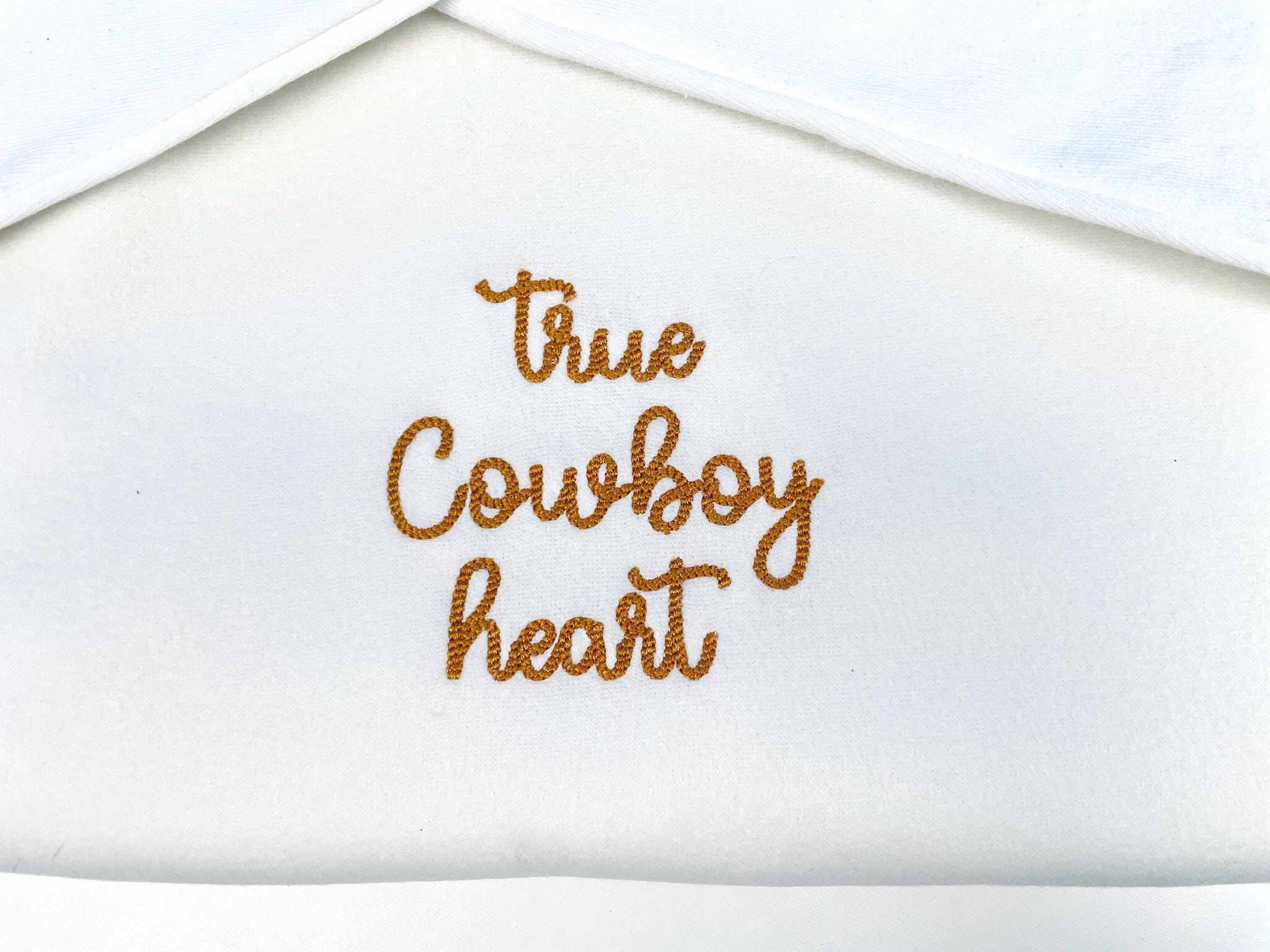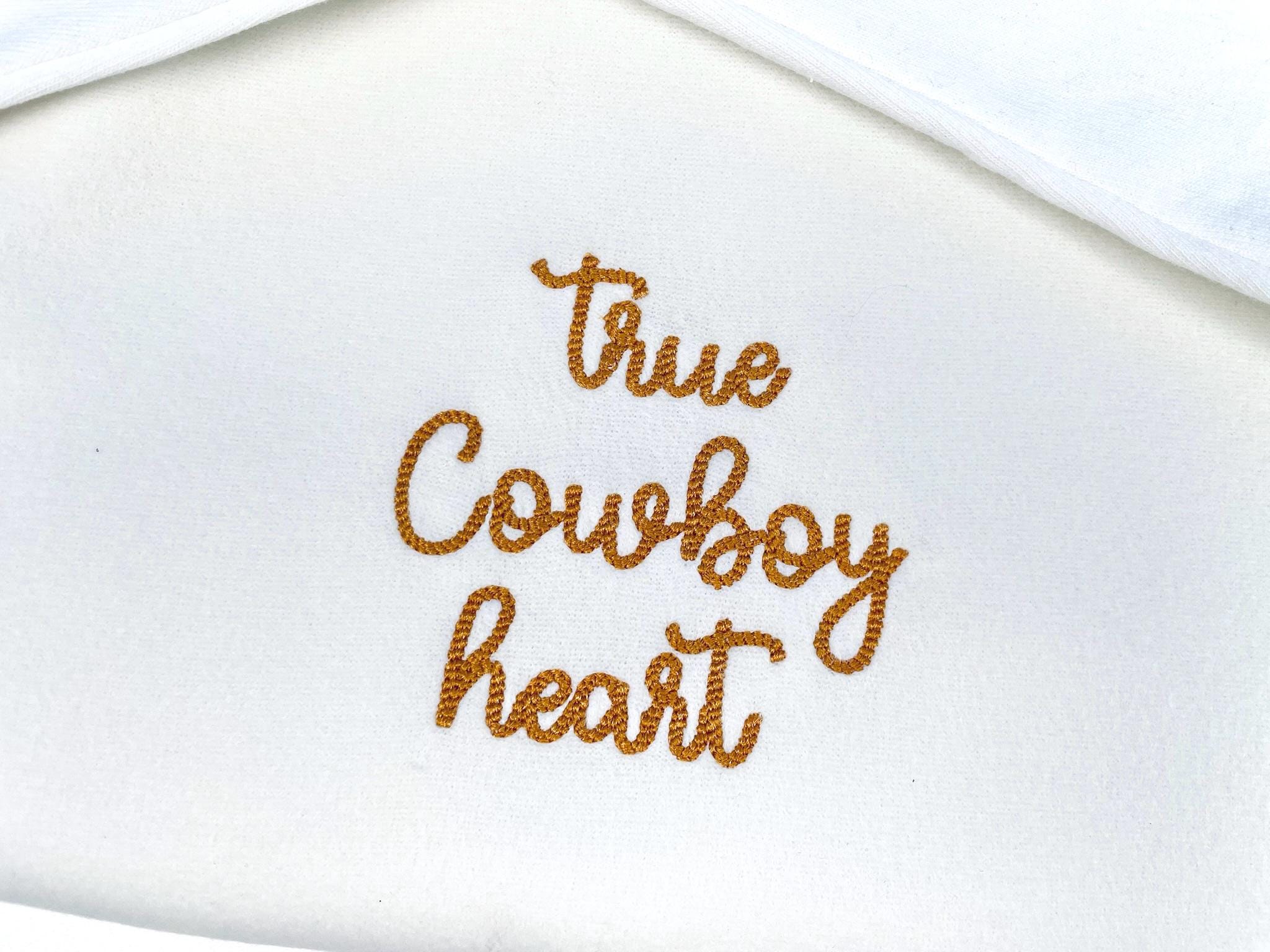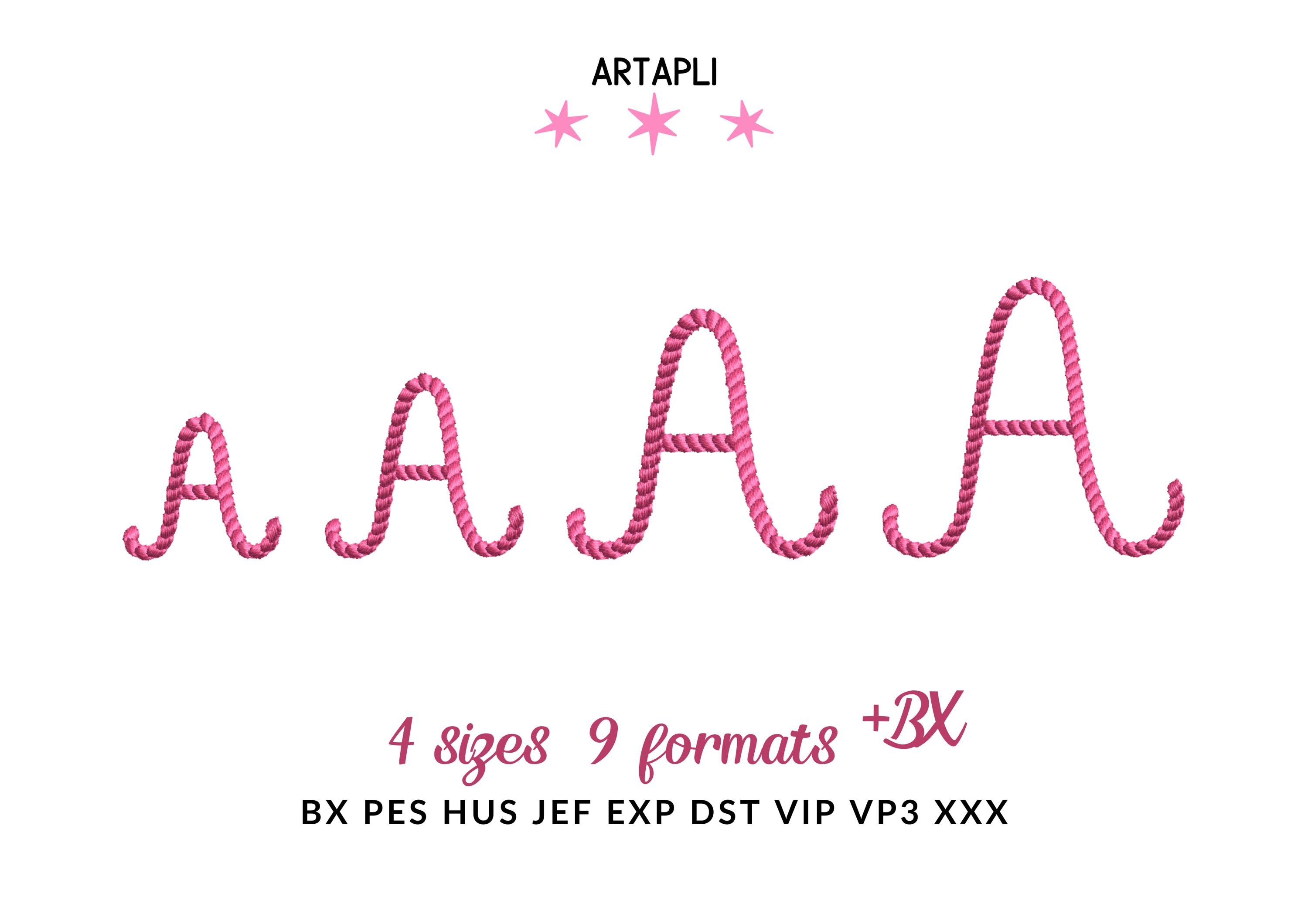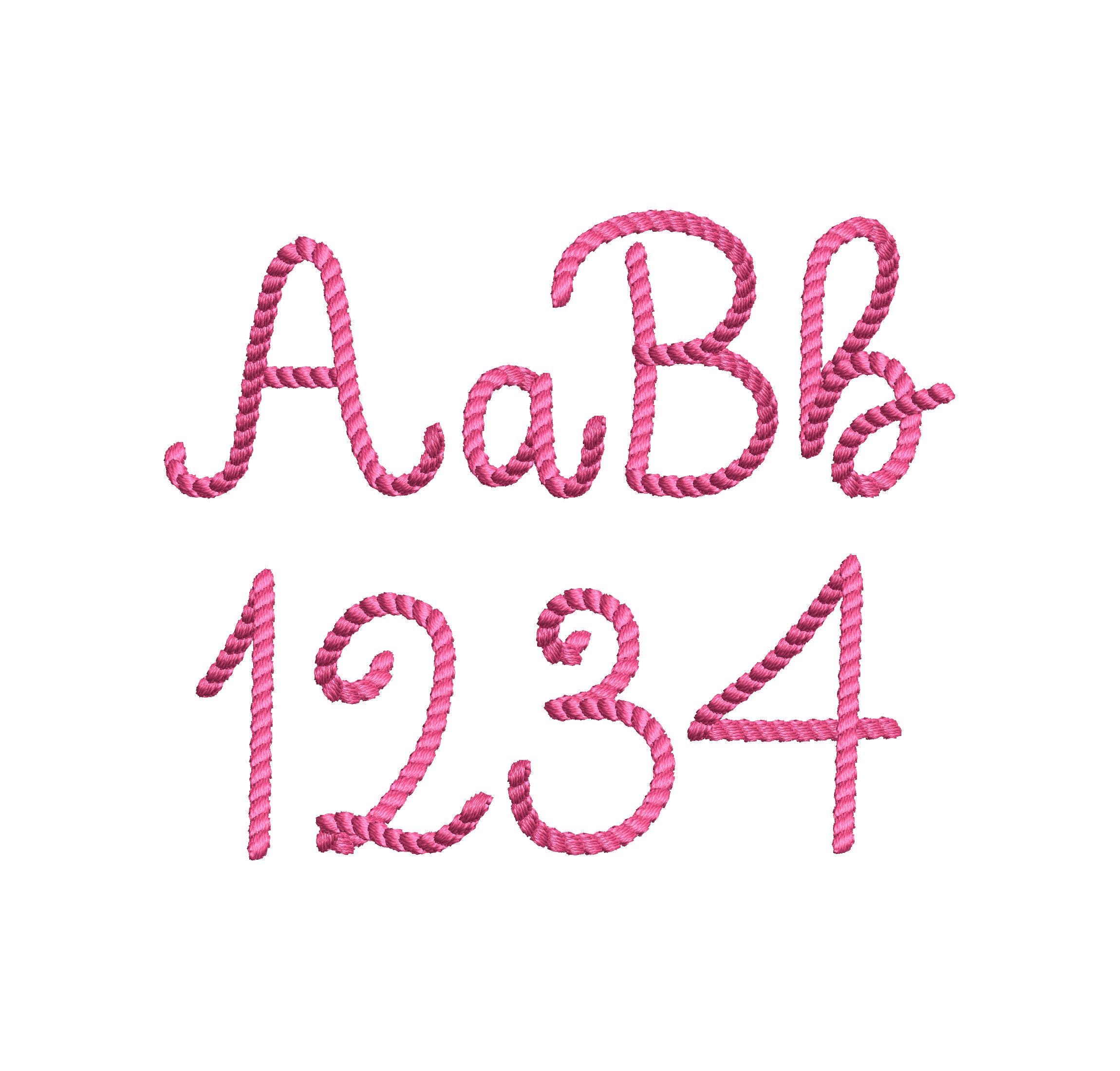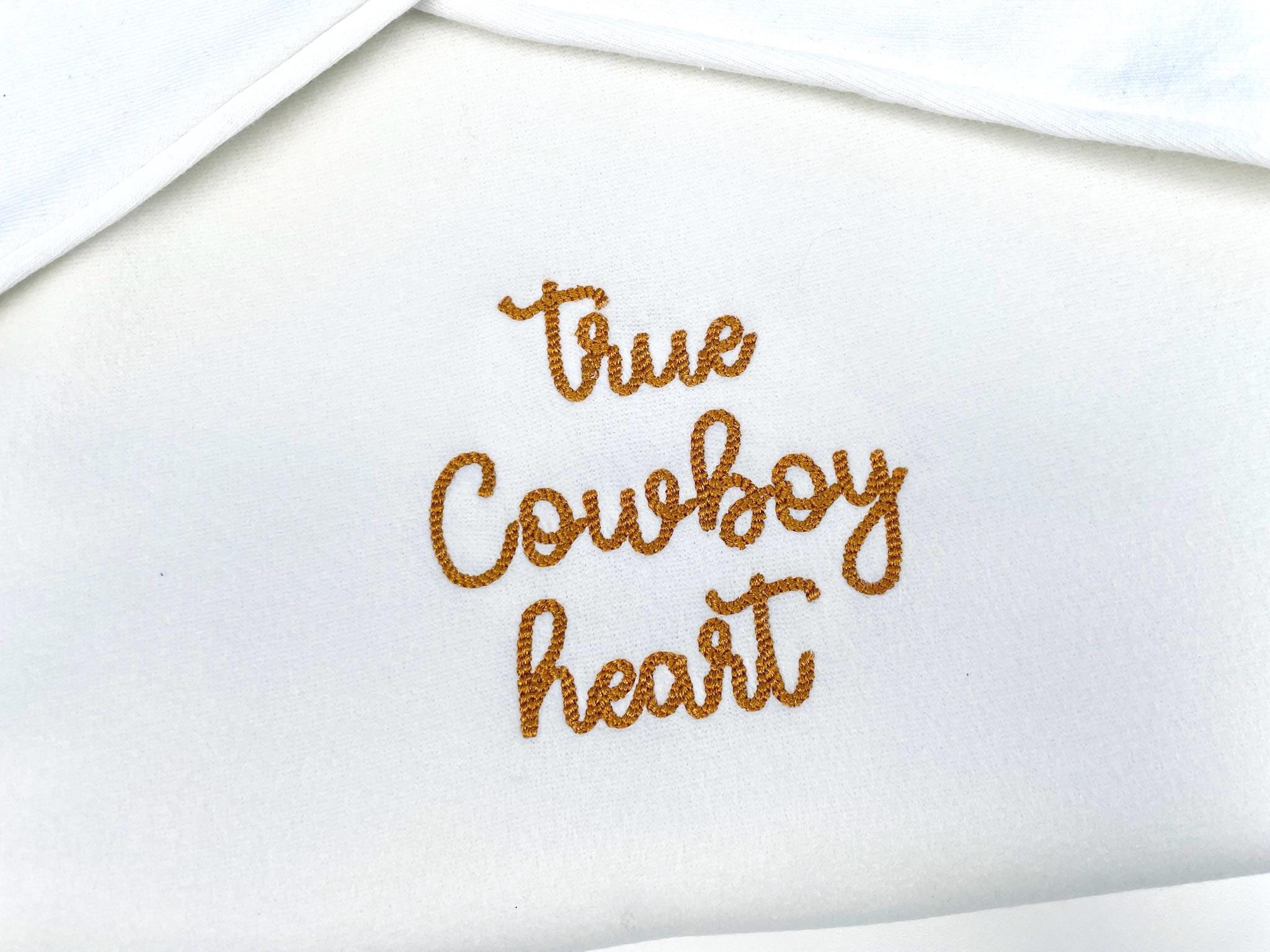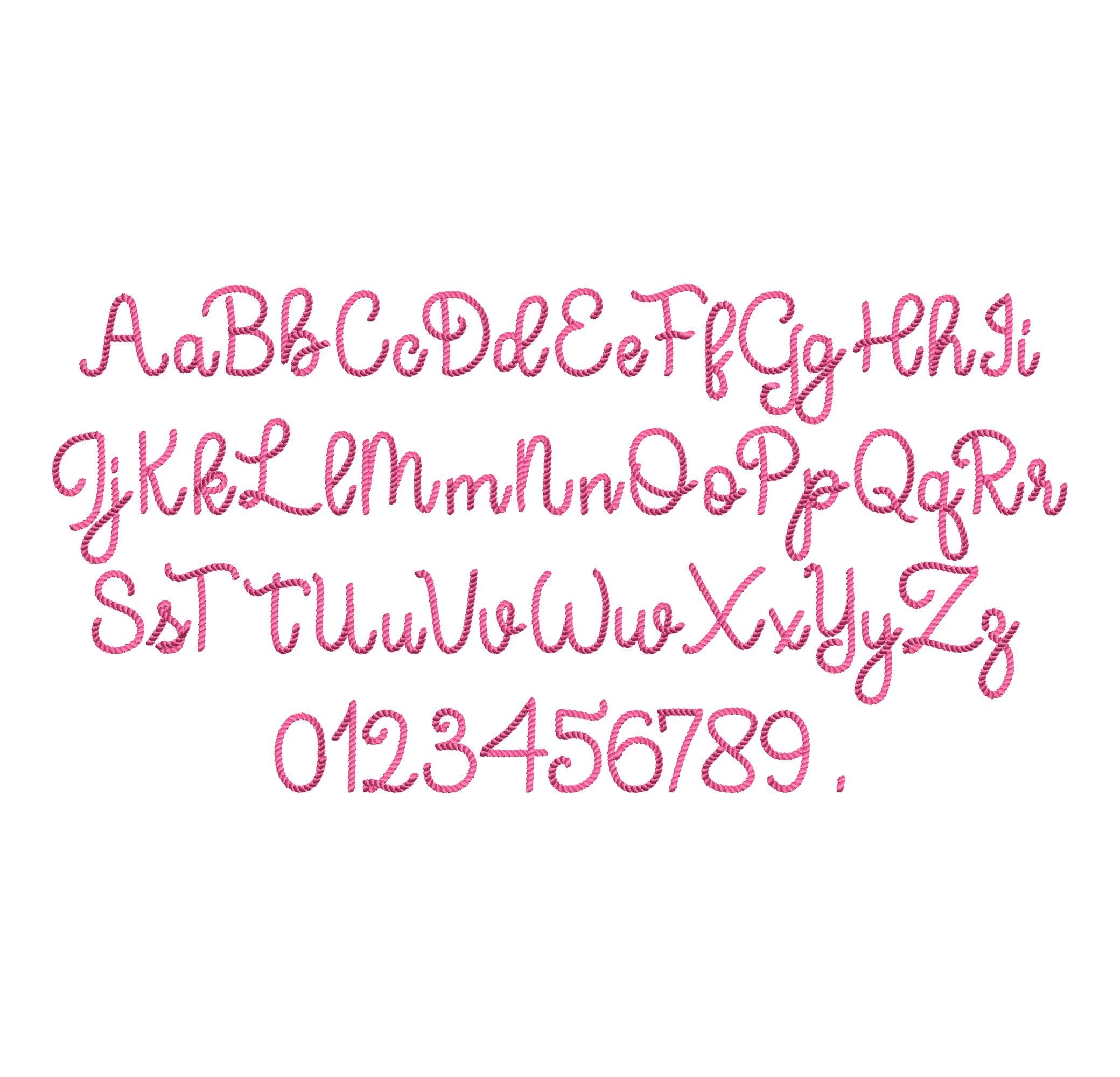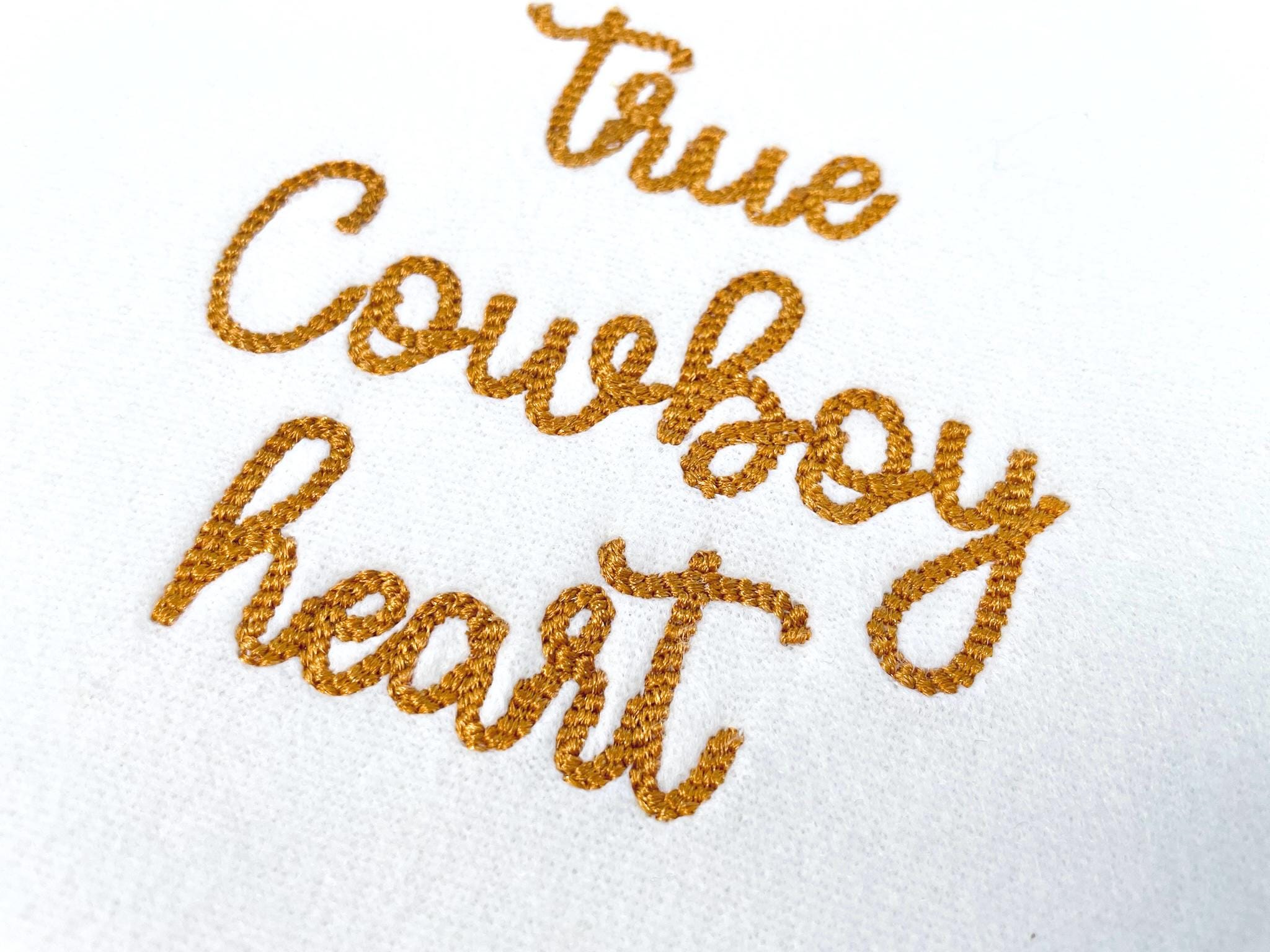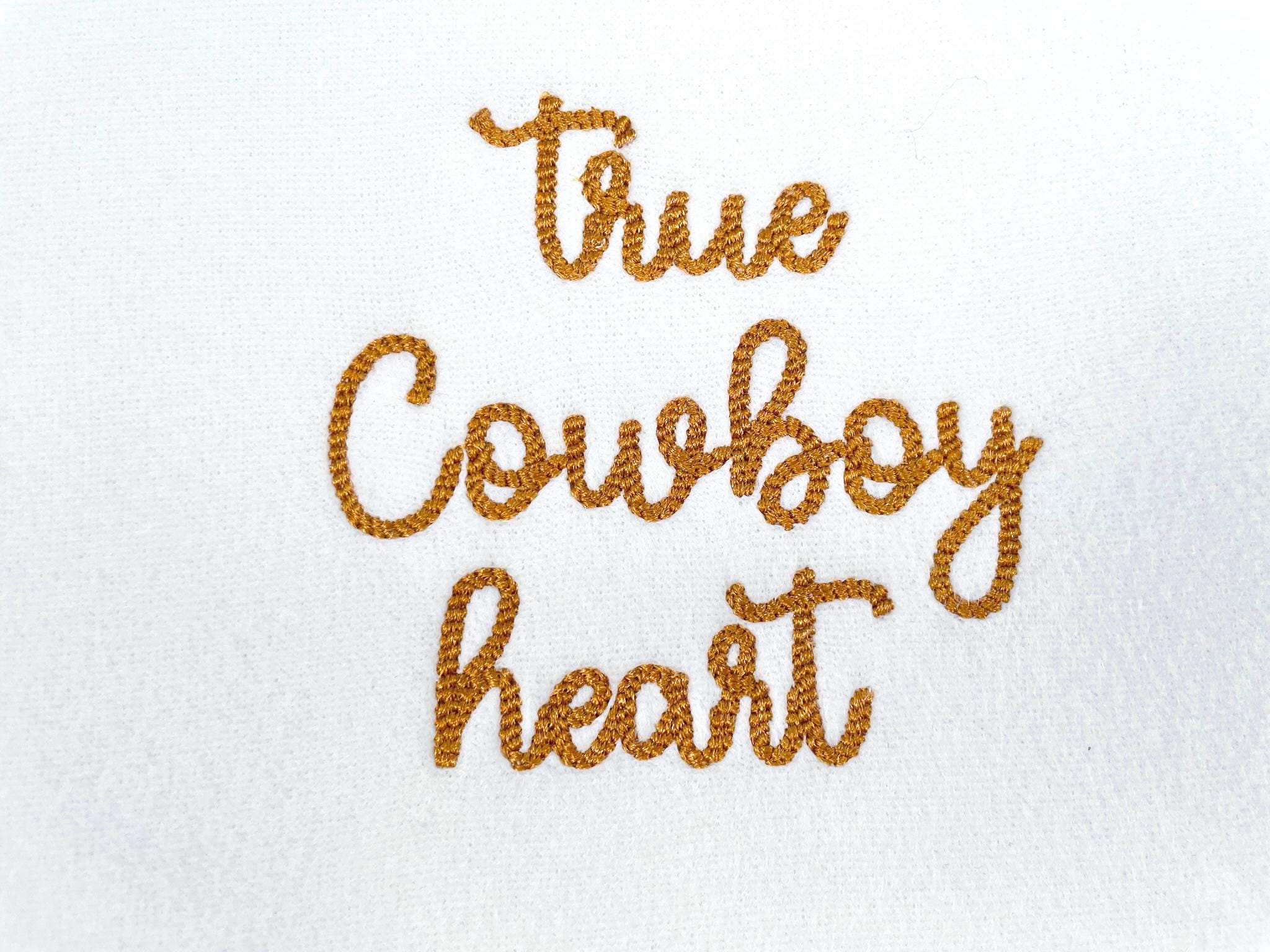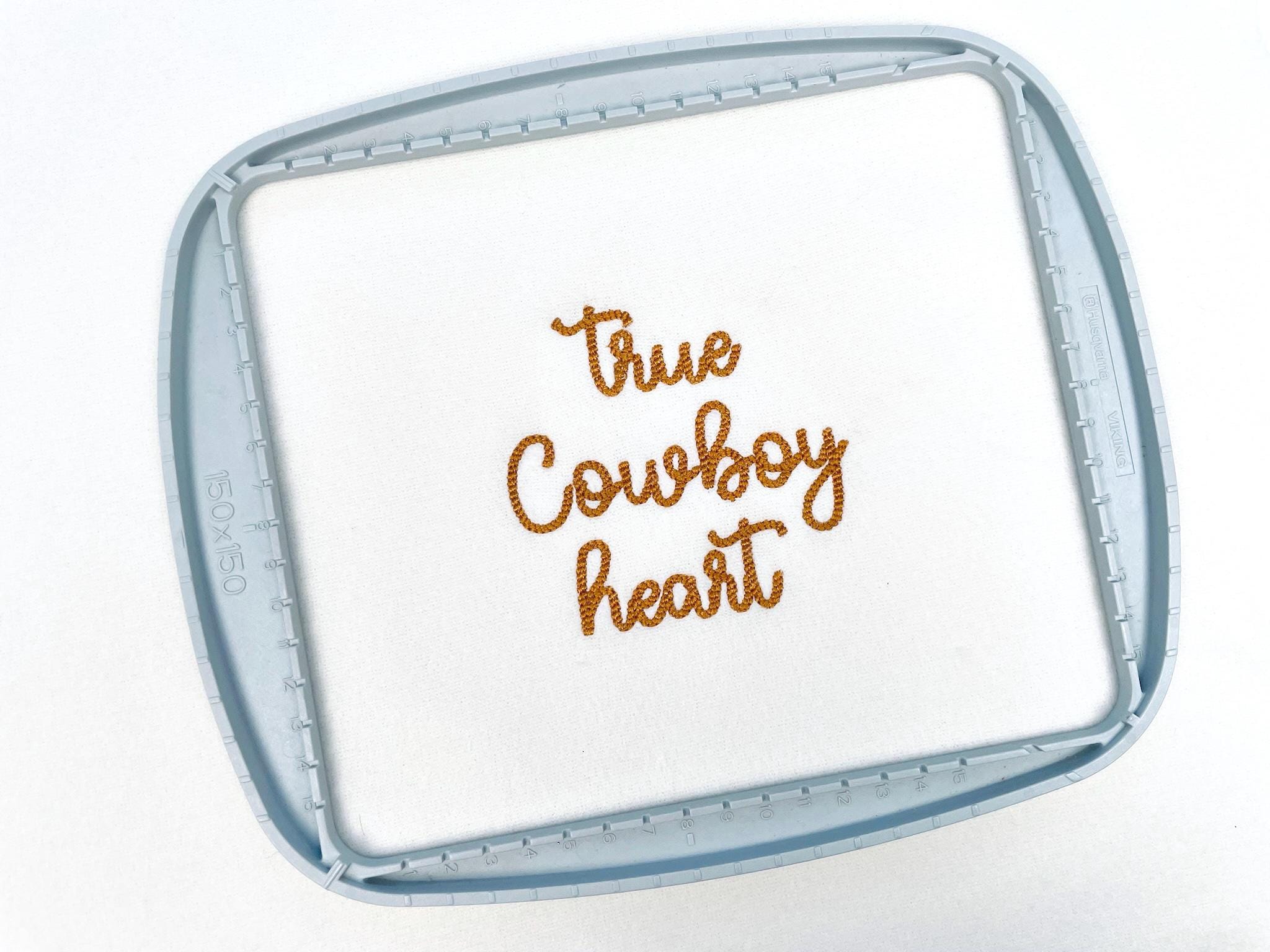
Mini Rope stitch FONT Whimsy Cowboy rodeo textured Alphabet Monogram Machine Embroidery Designs handwritten letters sizes 0.8 up to 1.5 inch, and BX
Entire alphabet A-Z uppercase and lowercase letters, numbers 0-9, and period.
I was disappointed with this because the letters did not seem to connect as seamlessly as it appears in the stock photo